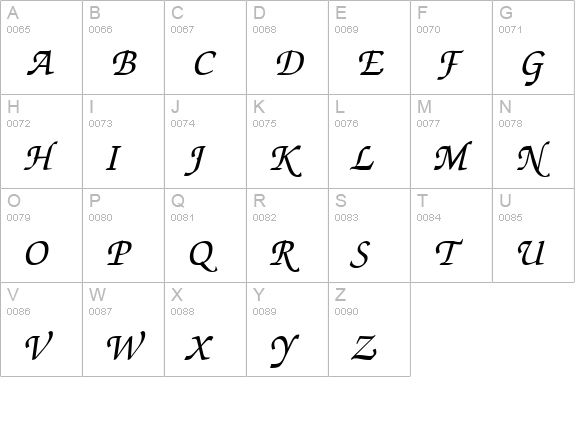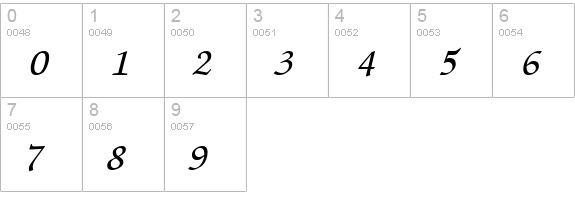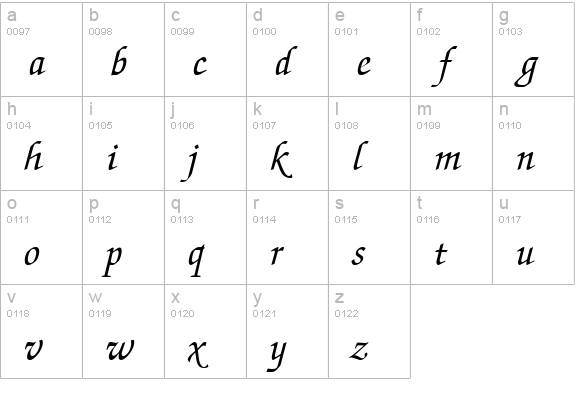
Chancery Script SSi Italic Font Details
Chancery Script SSi Italic is a distinctive, italic variant in the Chancery typeface family \xE2\x80\x94 well suited to design and typography projects.
Chancery Script SSi Italic font embodies elegance and sophistication with its graceful, flowing curves and delicate strokes. The italic style adds a touch of drama and flair to any design project, making it a perfect choice for invitations, signage, and other creative endeavors. With its timeless beauty and classic charm, this font exudes a sense of refinement and luxury. Best of all, Chancery Script SSi Italic font is available for free download at FontsMarket.com. Whether you're a designer seeking to add a touch of sophistication to your work or simply looking for a stylish font for personal use, this elegant typeface is sure to impress. Don't miss out on the opportunity to enhance your projects with the beauty of Chancery Script SSi Italic font – download it today and elevate your designs to new heights.